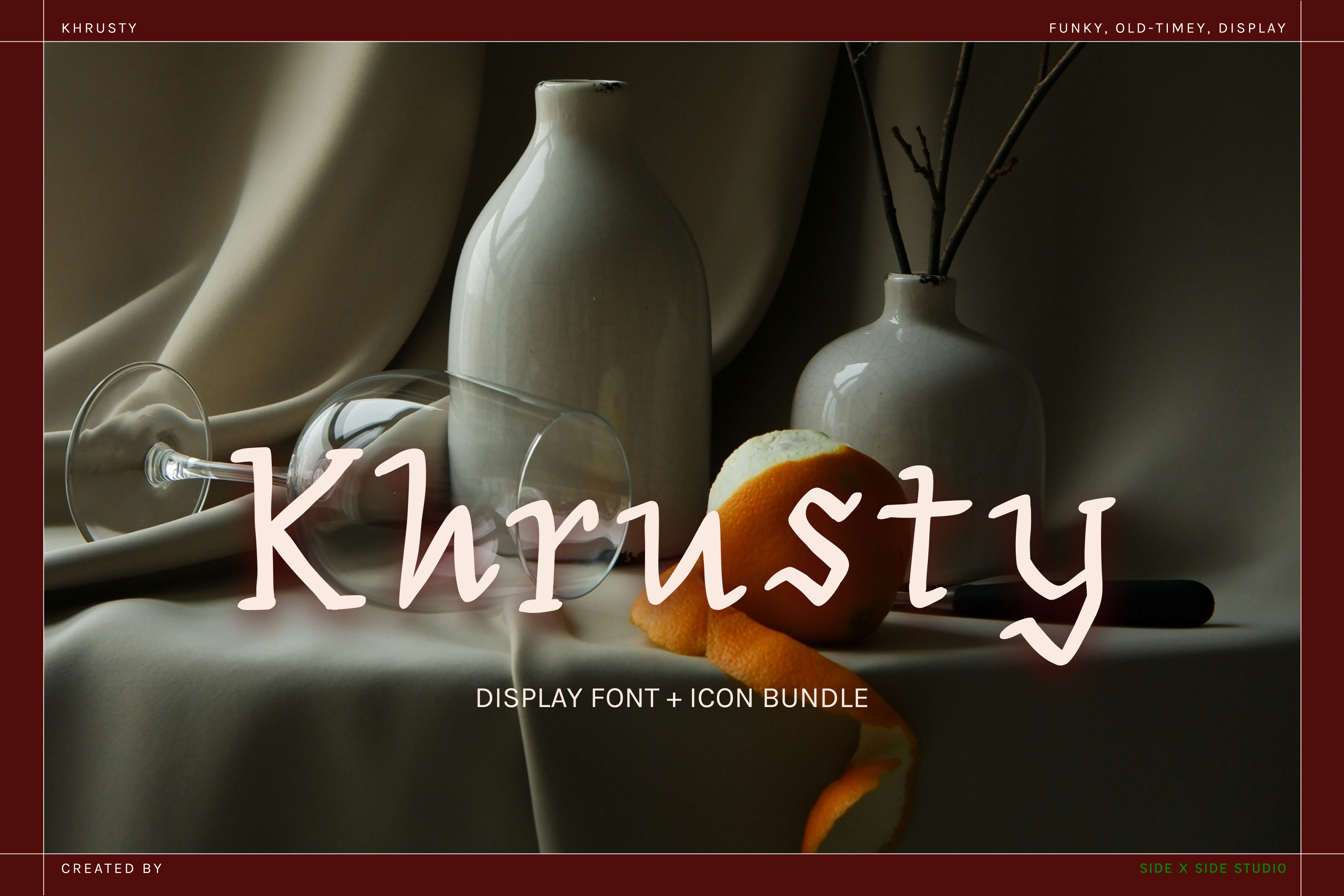
Khrusty Display Font + Icon Bundle
Khrusty is a playful display font inspired by calligraphy and blackletter shapes. It’s got a bold and funky personality perfect for logos, headings, or an accent font.